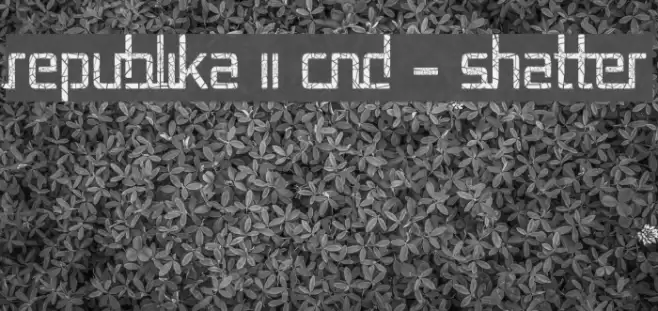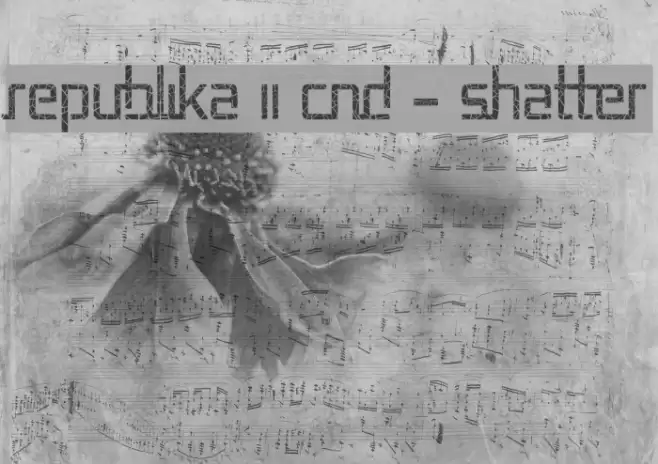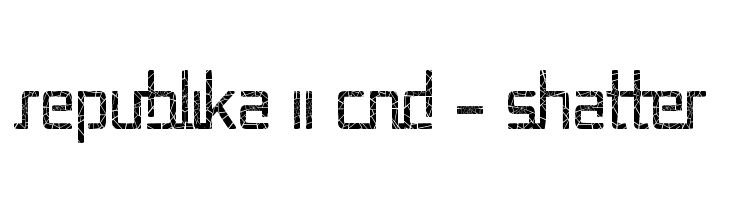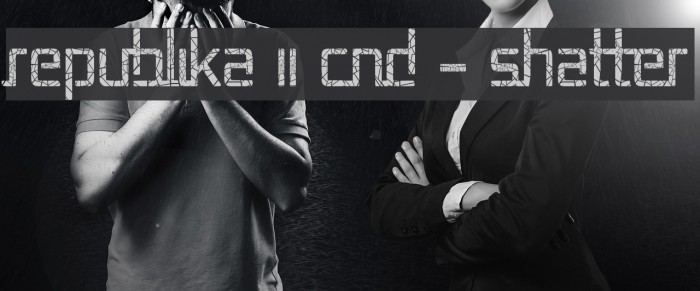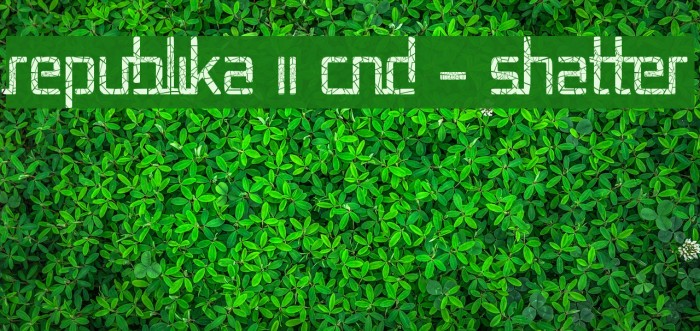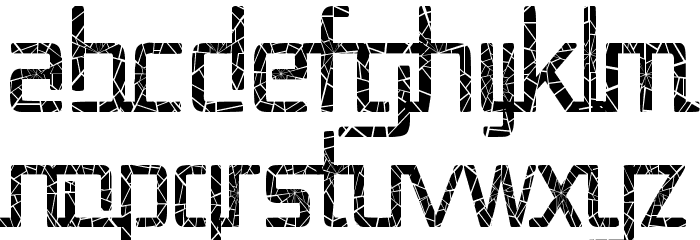
Republika II Cnd - Shatter Font
Republika II Cnd - Shatter Description
This font features a unique shattered glass effect, creating a dynamic and edgy appearance. Each character is composed of fragmented pieces that give the impression of a broken surface, adding a sense of movement and energy. The geometric structure of the letters maintains readability while offering a distinct visual style. The uppercase and lowercase letters, along with numbers and special characters, all share this cohesive shattered design, making it suitable for projects that require a bold and unconventional look.
A dynamic font with a shattered glass effect, offering an edgy and bold appearance from Uncategorized fonts.
- Proposed Projects: Ideal for album covers, posters, video game graphics, and any project needing a striking and modern aesthetic.